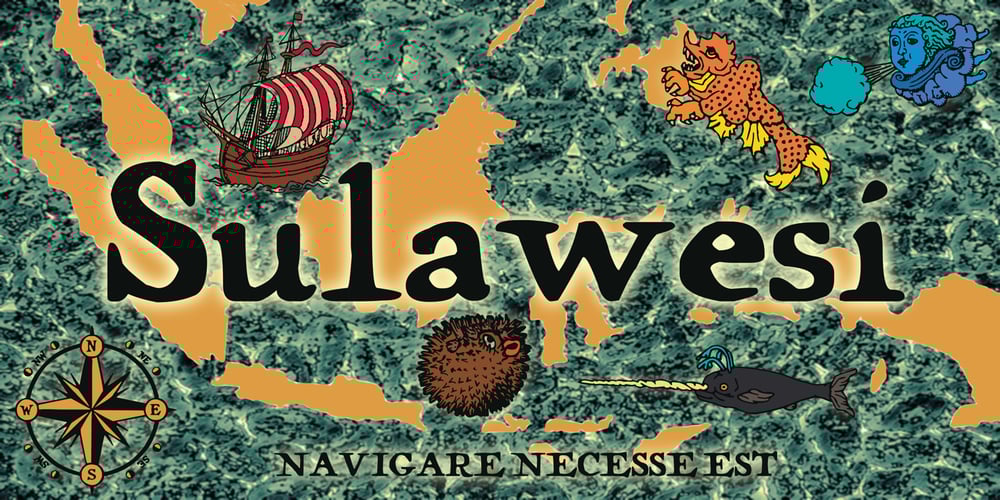
Sulawesi Font Family was designed by Heikki Morgan Hämäläinen and published by Morganismi. Sulawesi contains 2 styles and family package options. Sulawesi is an adventurous font imitating old map style. The family contains a text typeface, and a picture font with fish, sea creatures, monsters, old sail ships and stuff.